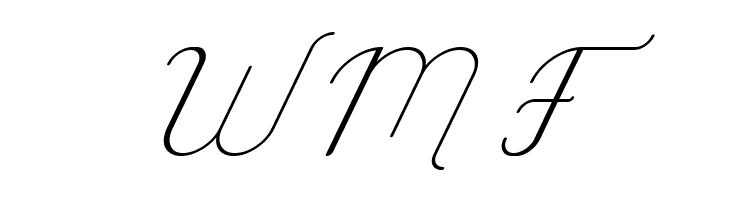
( Randi Ilhamsyah )
A chaotic, edgy font with jagged, irregular strokes and a distressed appearance.
( Robin Campistron - www.rcgraphics.fr )
A modern, geometric sans-serif font with a clean and minimalist design.
( SSI.Scraps - Syukur Setiyadi - www.creativefabrica.com/designer/syukursetiyadi/ )
An elegant, flowing script font with ornate uppercase and connected lowercase letters.
( SSI.Scraps - Syukur Setiyadi - www.creativefabrica.com/designer/syukursetiyadi/ )
An ornate, swashed font with elaborate decorative elements.
( SSI.Scraps - Syukur Setiyadi - www.creativefabrica.com/designer/syukursetiyadi/ )
Decorative swashes and flourishes with intricate, elegant lines.
( SSI.Scraps - Syukur Setiyadi - www.creativefabrica.com/designer/syukursetiyadi/ )
A flowing cursive font with elegant curves and loops.
( SSI.Scraps - Syukur Setiyadi - www.creativefabrica.com/designer/syukursetiyadi/ )
A bold, cursive font with interconnected letters and a playful, dynamic style.
( Saqib Ahmad - blog.graphicspsd.com/ )
A playful, handwritten font with rounded, smooth letterforms and a casual style.
( Solotype Studio )
A flowing, handwritten font with elegant uppercase and playful lowercase letters.
( Stefano Chies - www.stethesign.com )
A geometric font with characters formed from triangular shapes, offering a modern and artistic style.
( Stefano Chies - www.stethesign.com )
A geometric, triangle-based decorative font with a modern and artistic style.
( Swapnil Deshpandey - www.behance.net/crash2405 )
A modern, rounded sans-serif font with geometric shapes and uniform stroke width.
( Swapnil Deshpandey - www.behance.net/crash2405 )
A clean, geometric font with a modern and open design.
( Swapnil Deshpandey - www.behance.net/crash2405 )
A playful, hand-drawn font with rounded serifs and a whimsical style.
( Typemacz Studio - Yusuf Sangdes - fontbundles.net/typemacz-studio )
A bold, expressive handwritten font with fluid and dynamic strokes.
( Typemacz Studio - Yusuf Sangdes - fontbundles.net/typemacz-studio )
A graceful and flowing script font with elegant, continuous strokes.
( Vladimir Fedotov )
A bold, condensed font with tall, narrow letterforms and minimal spacing.
( Vladimir Fedotov )
A playful and whimsical font with tall, slender letterforms and artistic flair.
( Vladimir Fedotov )
A modern, high-contrast stencil font with geometric shapes and bold strokes.
( Vladimir Fedotov )
A delicate, flowing script font with elegant, interconnected characters.
( Vladimir Fedotov )
An elegant and flowing script font with intricate loops and swirls.
( Vladimir Fedotov )
An elegant and flowing script font with intricate letterforms and graceful loops.
( Vladimir Fedotov )
A modern, sleek font with tall, narrow characters and a vertical emphasis.
( Vladimir Fedotov )
An elegant script font with intricate swirls and decorative flourishes.
( Vladimir Fedotov )
Elegant, flowing script font with a cursive, italic style.
( Vladimir Fedotov )
An elegant, italic script font with flowing, connected characters.
( Vladimir Fedotov )
A sophisticated, high-contrast font with elongated, narrow letterforms.
( Vladimir Fedotov )
A modern, sleek font with elongated, narrow characters and a clean aesthetic.
( Vladimir Fedotov )
A playful, whimsical handwritten font with tall, narrow letterforms.
( Vladimir Fedotov )
A geometric, narrow font with sharp angles and a modern aesthetic.
( Vladimir Fedotov )
A tall, angular font with a futuristic and geometric style.
( Vladimir Fedotov )
A bold, high-contrast serif font with sharp edges and elegant curves.
( Vladimir Fedotov )
A bold, modern font with elongated, narrow characters and a vertical emphasis.
( Vladimir Fedotov )
A modern, geometric sans-serif font with rounded edges and a minimalist design.
( Vladimir Fedotov )
A bold, angular serif font with a rebellious and edgy style.